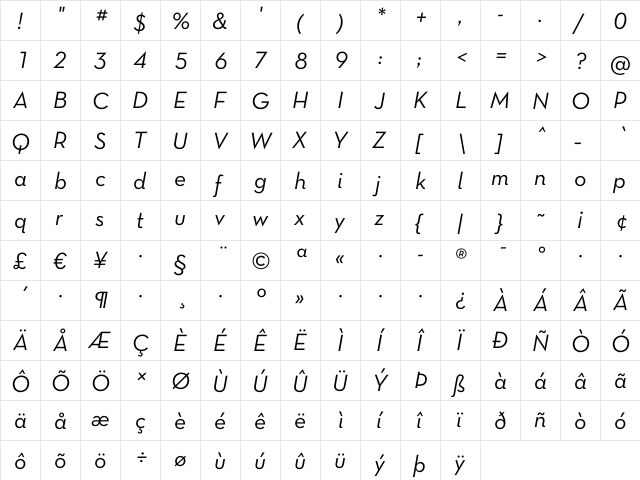
Neutra Text TF Alt Italic
Italic ·  Christian Schwartz ·
DesignerChristian Schwartz
Design Context for Neutra Text TF Alt Typeface
Neutra Text TF Alt offers clean, dependable letterforms without strong stylistic allegiance, making it a practical choice for designers who need flexibility. The dynamic lean of this cut emphasises speed and emphasis in any layout.
Pro Tip: Use Neutra Text TF Alt for emphasis, pull quotes, and subheadings where its slanted energy can add rhythm to the layout.